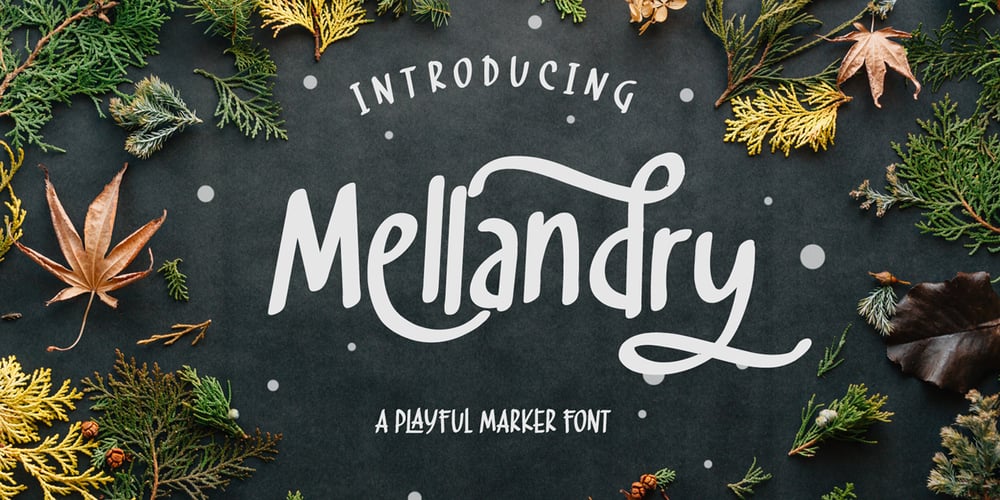
Mellandry Font Family was designed by Ahmad Ramzi Fahruddin and published by Arterfak Project. Mellandry contains 1 styles and family package options. Introducing our new product Mellandry, inspired by childhood taste and marker scratch. The uppercase and lowercase letters are designed to stay fit when combined in a word. A playful font with stylistic alternates which is based on custom calligraphy. The added tails and swashes give you options in your design. There are 50+ custom ligatures to make it more looks flexible. Mellandry is suitable for your quotes, design label, clothing design, merchandise, craft design, even comic design as a body text, title, and etc. Font featured: – Uppercase – Lowercase – Number – Symbol – Multilingual characters: ??????????????????????????????????????????????????????????????????????? – Ligatures – Stylistic alternates – Catchwords Thank you for visiting, and I hope you enjoy it! Please do not hesitate to drop me a message if you have any issues or inquiries.